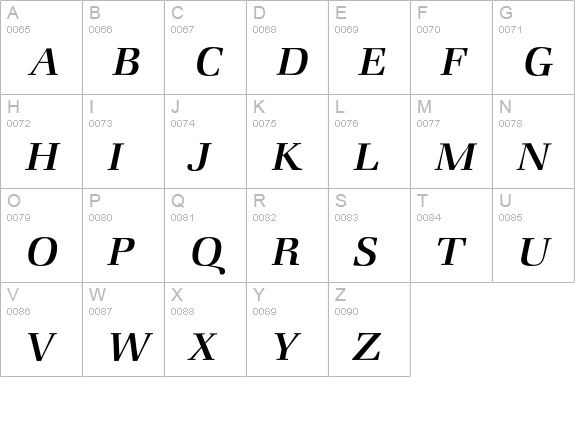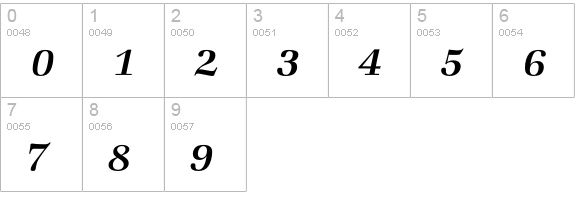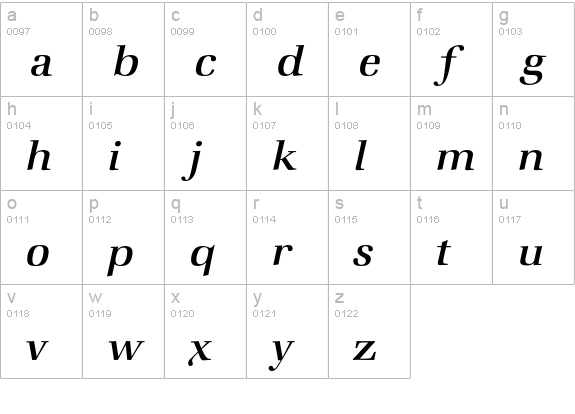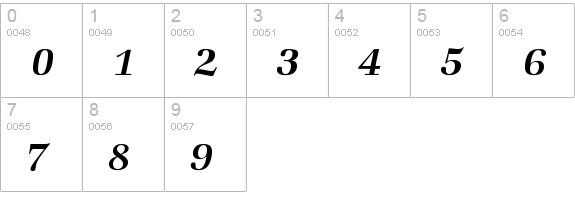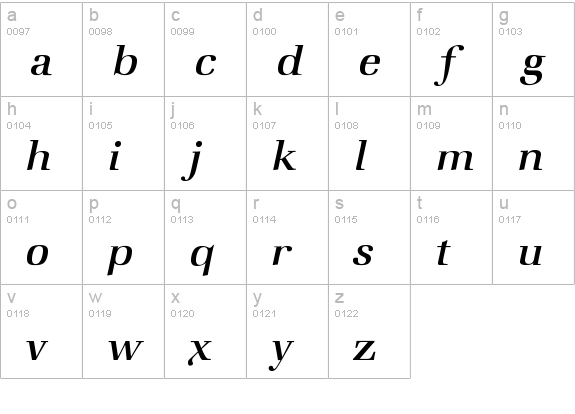
ZapfBookEF-MediumItalic is a stylish and elegant font that exudes sophistication and charm. Its medium weight with an italic slant adds a touch of flair to any design project. The graceful curves and distinctive letterforms make this font perfect for conveying a sense of refinement and class. What sets ZapfBookEF-MediumItalic apart is that it is available for free download at FontsMarket.com. This means that you can easily access this beautiful font without any cost, making it a valuable addition to your font library. Whether you're working on a branding project, invitation design, or any other creative endeavor, ZapfBookEF-MediumItalic is sure to elevate your work with its timeless appeal. Embrace the beauty and versatility of ZapfBookEF-MediumItalic today by downloading it for free at FontsMarket.com. Elevate your designs with this exquisite font and make a lasting impression on your audience.